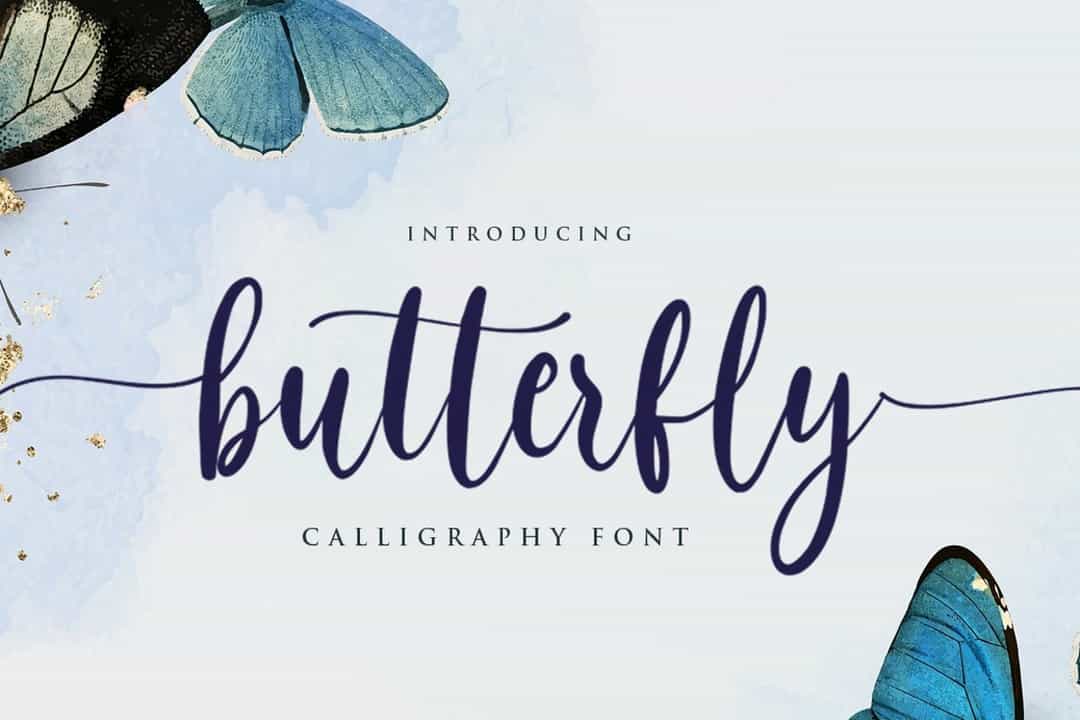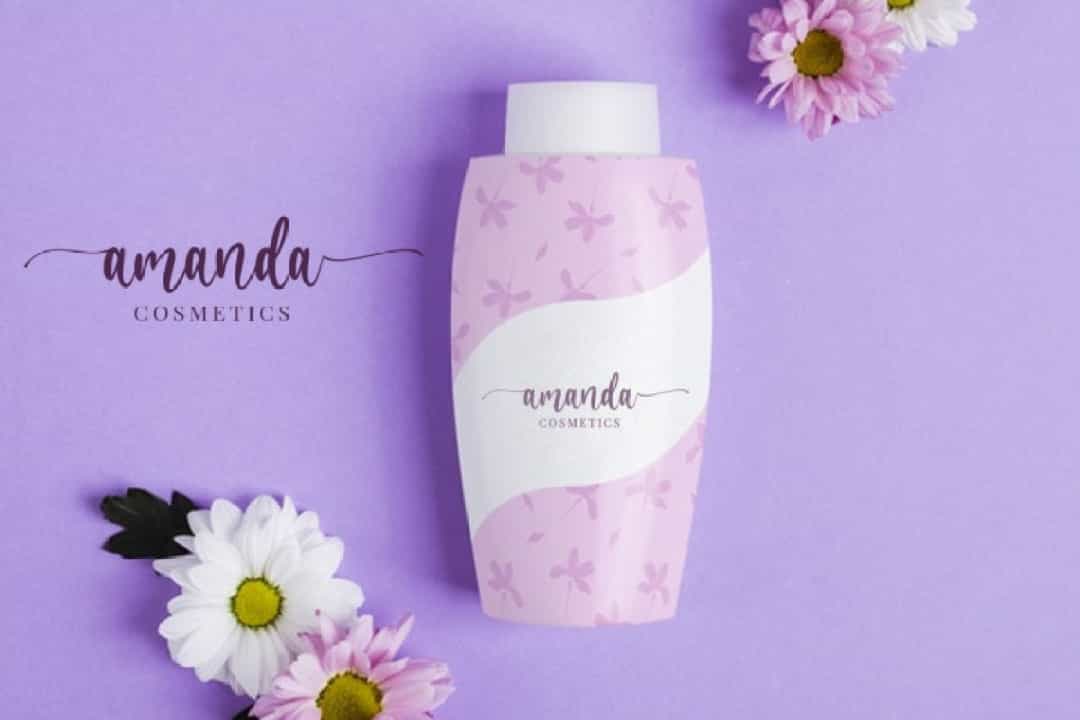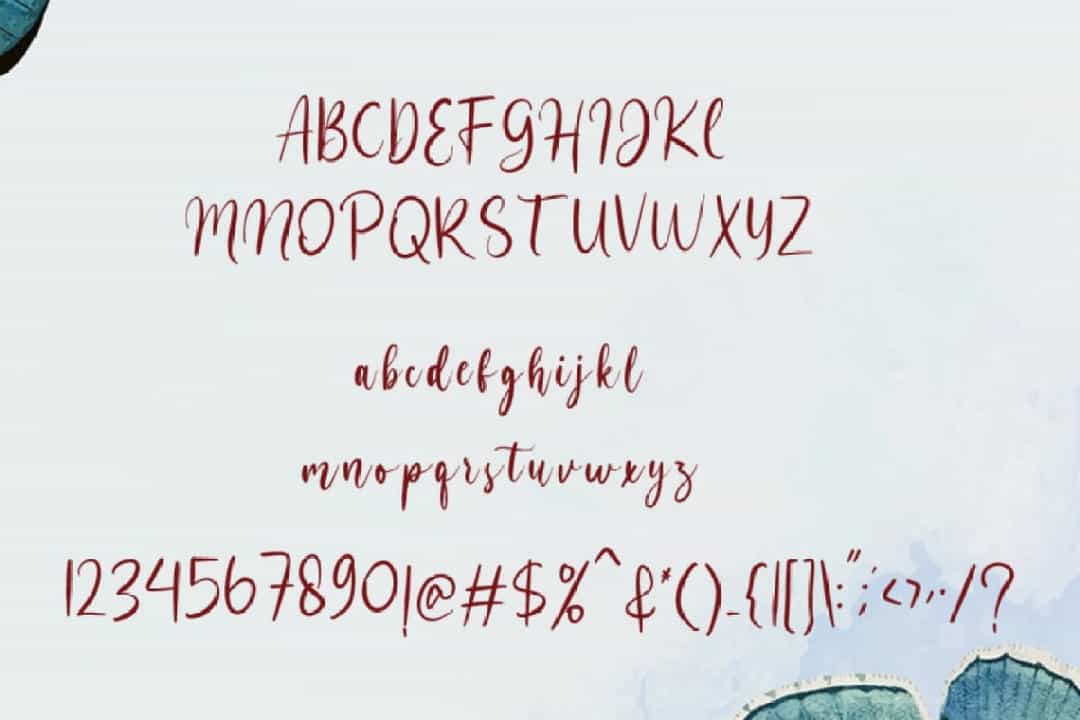
Butterfly is a beautiful cursive font with very stylish design and elegant look of the letters. Integrate it into your works and get incredible results in design! Also, this font is designed in PUA encoding that will allow you to easily and quickly find all the glyphs, swashes and characters!